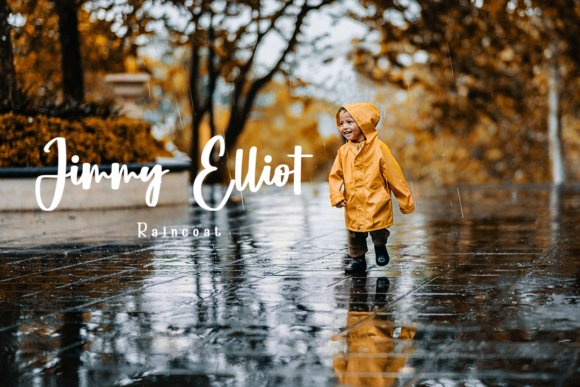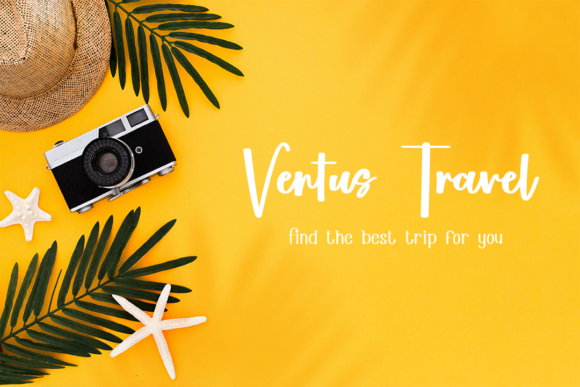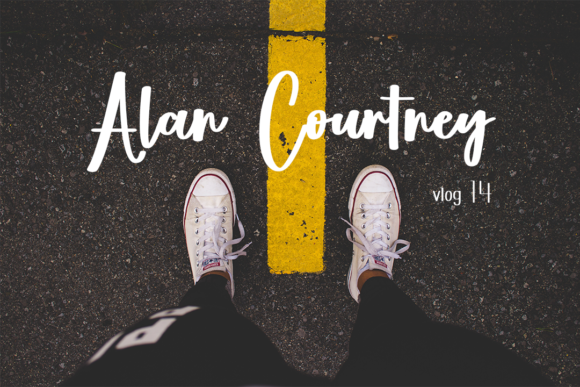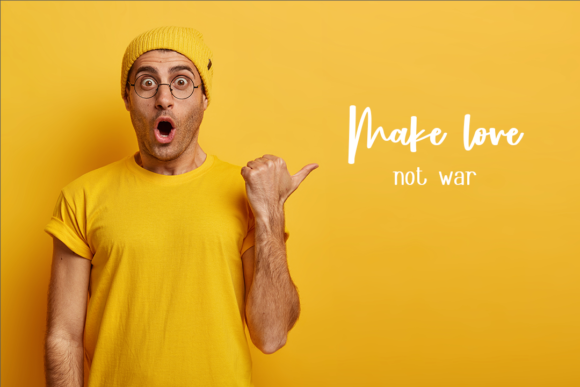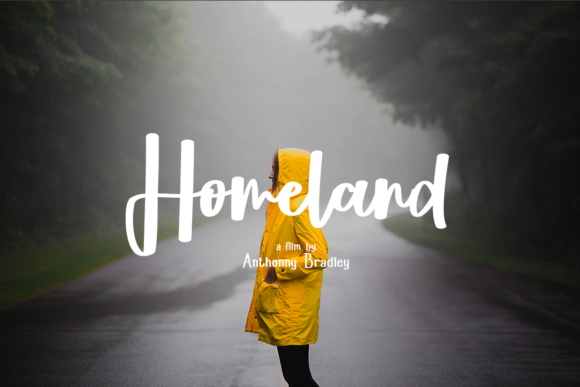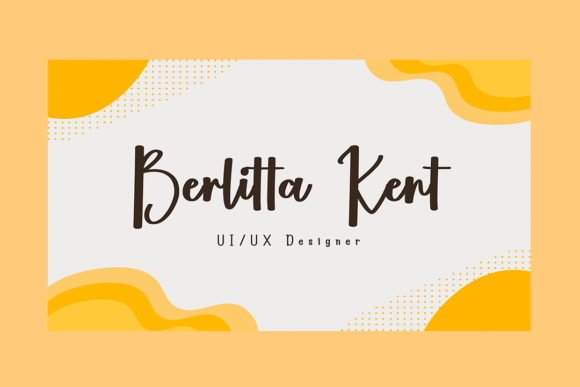
Fisher Font: The Perfect Duo for Your Design Projects
Are you tired of using the same old fonts for your design projects? Look no further than Fisher Font, a lovely duo font that combines a sans serif and script font to add a fun and friendly touch to your work. In this article, we’ll dive into the features and benefits of Fisher Font, and explore how it can elevate your designs to the next level.
What is Fisher Font?
Fisher Font is a unique duo font that consists of two complementary fonts: a sans serif font and a script font. The sans serif font is clean and modern, while the script font adds a touch of elegance and sophistication. Together, they form a versatile font duo that can be used for a wide range of design projects, from branding and advertising to packaging and digital media.
Key Features of Fisher Font
- Adaptable: Fisher Font is designed to be adaptable, making it perfect for a variety of design ideas. Whether you’re working on a logo, brochure, or social media graphics, Fisher Font will look great.
- Fun and Friendly: The font duo has a fun and friendly vibe that’s perfect for brands that want to convey a sense of approachability and playfulness.
- Highly Legible: The sans serif font is highly legible, making it perfect for body text and captions.
- Elegant Script: The script font adds a touch of elegance and sophistication, making it perfect for headings and titles.
Benefits of Using Fisher Font
So why should you choose Fisher Font for your design projects? Here are just a few benefits of using this versatile font duo:
- Unique Look: Fisher Font offers a unique and distinctive look that will set your designs apart from the crowd.
- Time-Saving: With Fisher Font, you get two fonts in one, saving you time and effort in finding the perfect font combination.
- Consistency: Using a single font duo throughout your design projects ensures consistency and cohesion, making your brand look more professional.
Design Ideas Using Fisher Font
Fisher Font is an incredibly versatile font duo that can be used for a wide range of design projects. Here are a few ideas to get you started:
- Branding: Use Fisher Font to create a unique and memorable brand identity that stands out from the crowd.
- Advertising: The font duo is perfect for creating eye-catching ads that grab attention and convey a sense of fun and friendliness.
- Packaging: Fisher Font is a great choice for packaging design, adding a touch of personality and whimsy to your product labels.
- Digital Media: Use Fisher Font to create engaging social media graphics, blog posts, and website headers that showcase your brand’s personality.
Tips for Using Fisher Font
Here are a few tips for getting the most out of Fisher Font:
- Mix and Match: Experiment with different font combinations, using the sans serif font for body text and the script font for headings.
- Play with Colors: Fisher Font looks great in a variety of colors, so don’t be afraid to experiment and find the perfect color combination for your design.
- Add Texture: Add texture and interest to your design by combining Fisher Font with other design elements, such as illustrations or patterns.
Fisher Font is a versatile and fun font duo that’s perfect for designers and crafters looking to add a touch of personality to their design projects. With its adaptable design, highly legible sans serif font, and elegant script font, Fisher Font is sure to become a go-to font duo in your design arsenal. So why wait? Try Fisher Font today and see how it can elevate your designs to the next level!